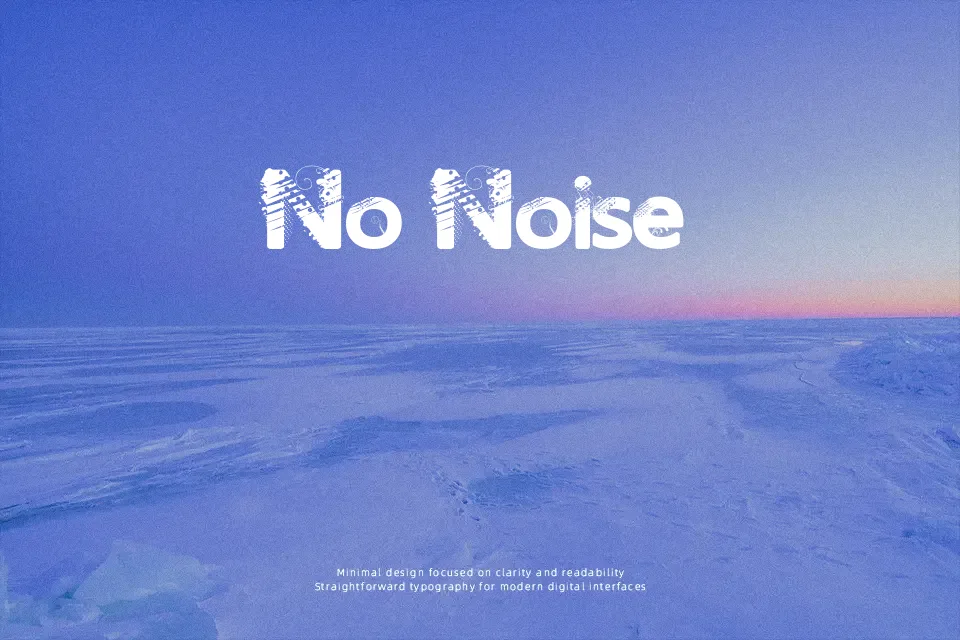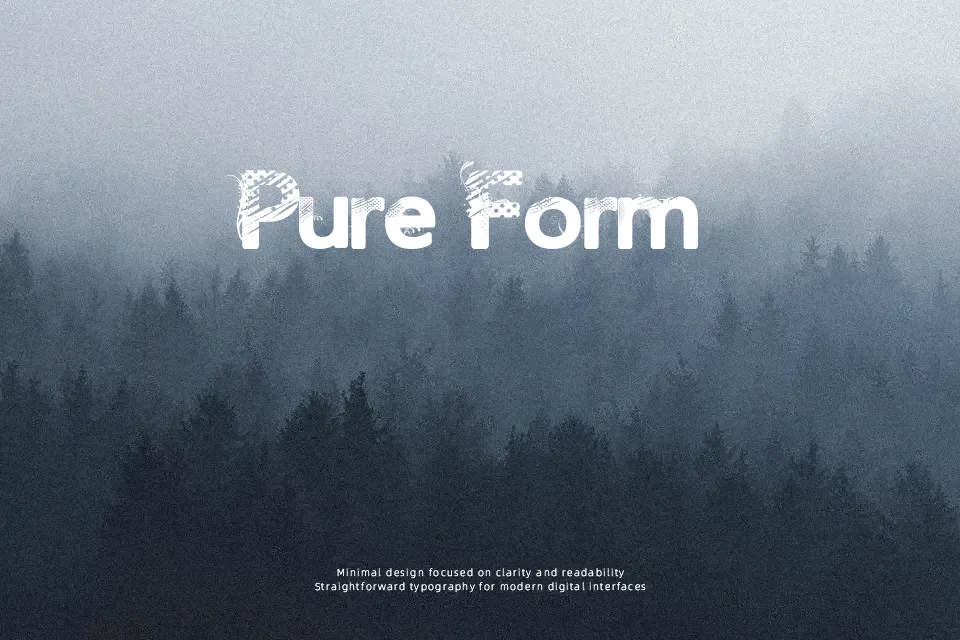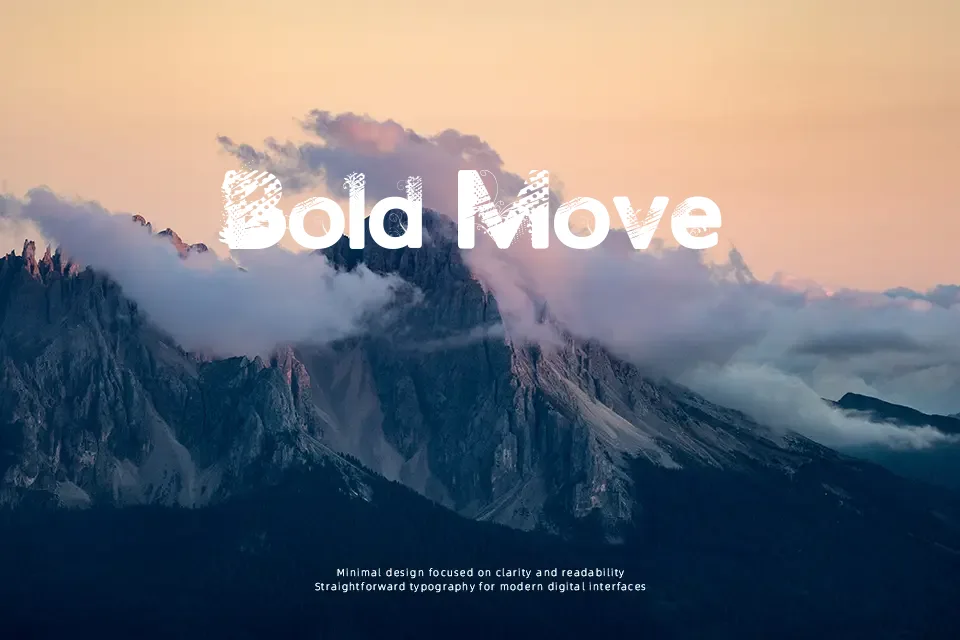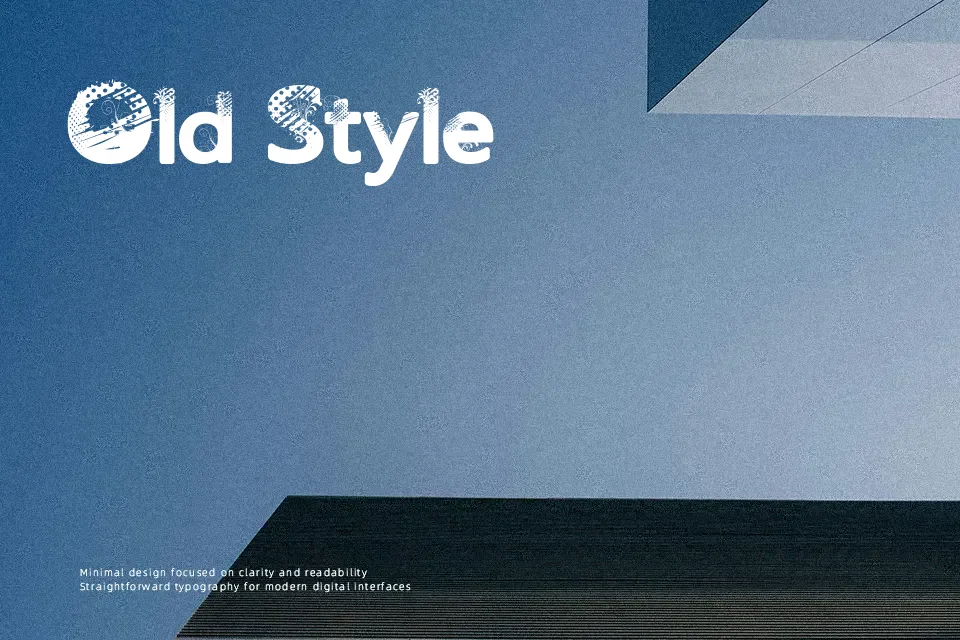
Trash Butterfly Font
Trash Butterfly Font features heavy, structural strokes fused with delicate butterfly wing flourishes and rough, distressed contours. The uppercase glyphs incorporate expansive decorative wings extending beyond the baseline and cap height, whereas the lowercase letterforms adopt more compact proportions to preserve primary character shapes. Generous horizontal spacing accommodates these extended organic details, maintaining legibility when the design appears in large headline environments. The typeface delivers striking graphic punch on band flyers, album artwork, and dark romance book jackets, where its ornate silhouettes establish immediate atmosphere. However, dense botanical and insectoid filigree diminishes rapid letter recognition in multi-line paragraphs, making the letterforms impractical for small body copy.
Best For: fantasy book covers, music festival posters, boutique apparel graphics
Not Ideal For: long paragraph text, mobile user interfaces, spreadsheet tables
Perfect for headline, invitation, and logo, with a artistic and decorative style.